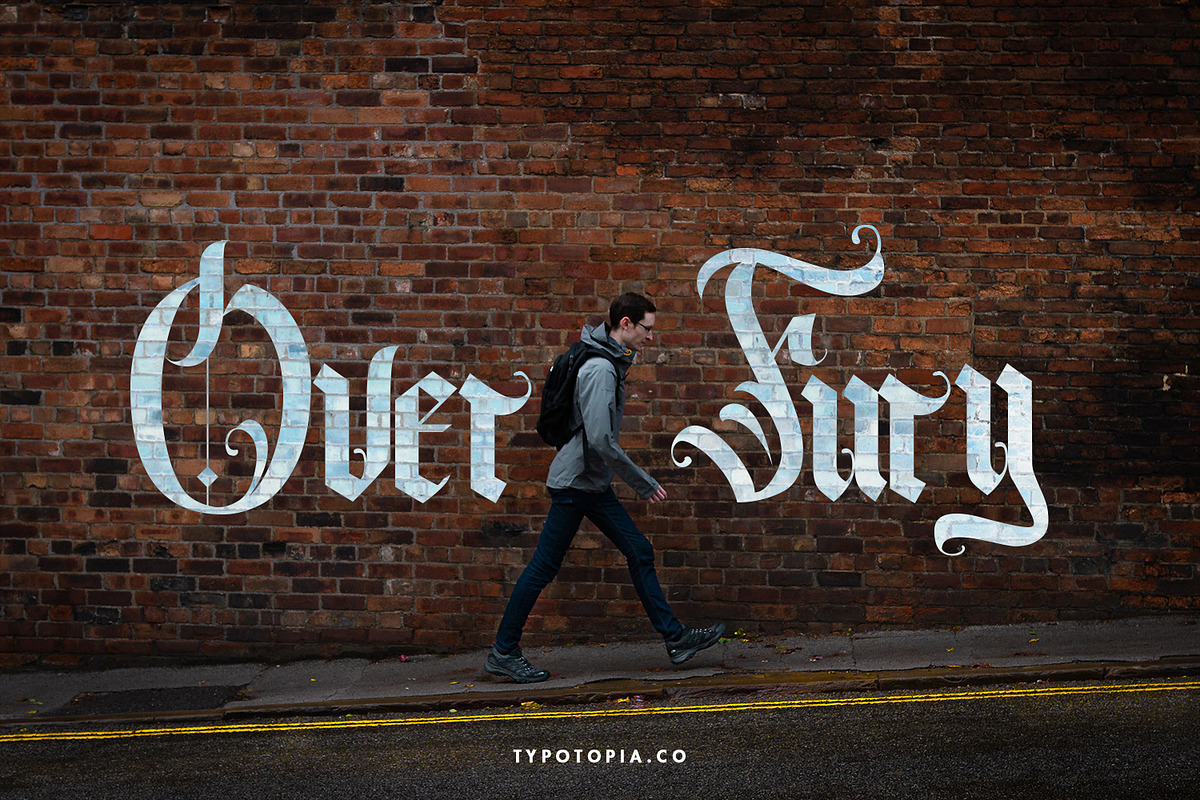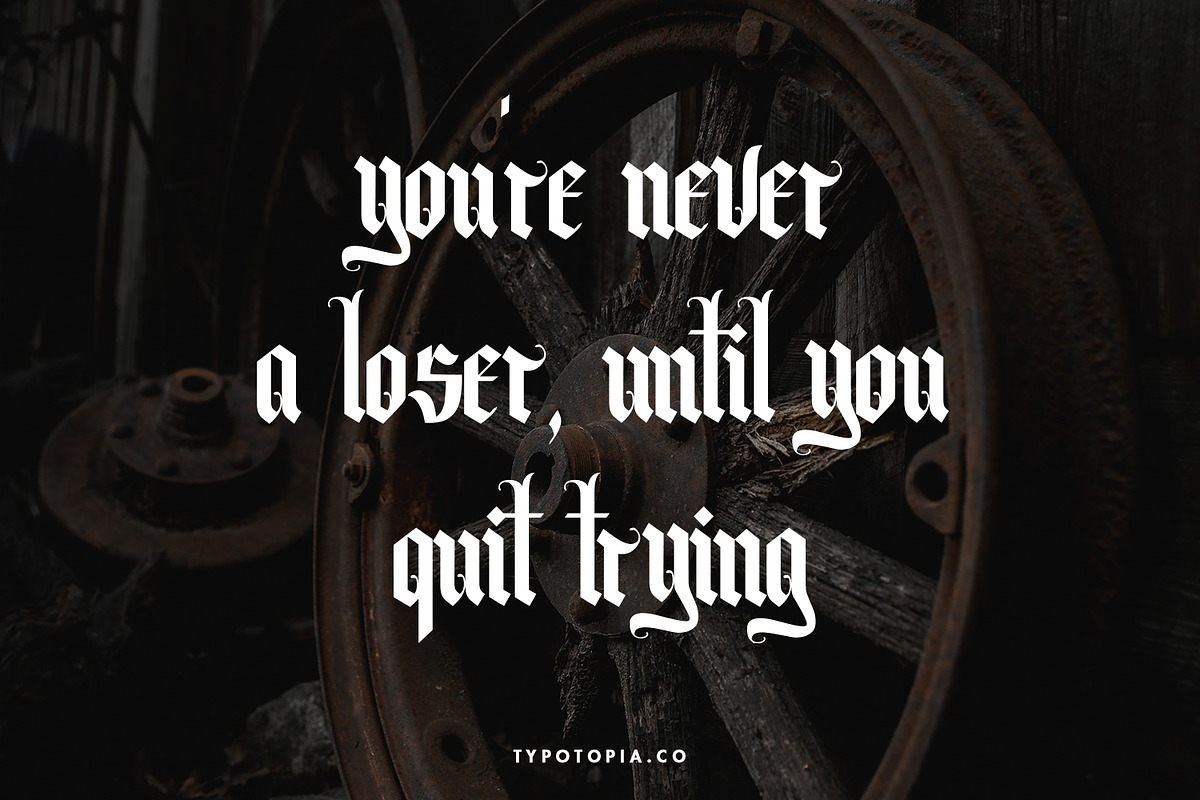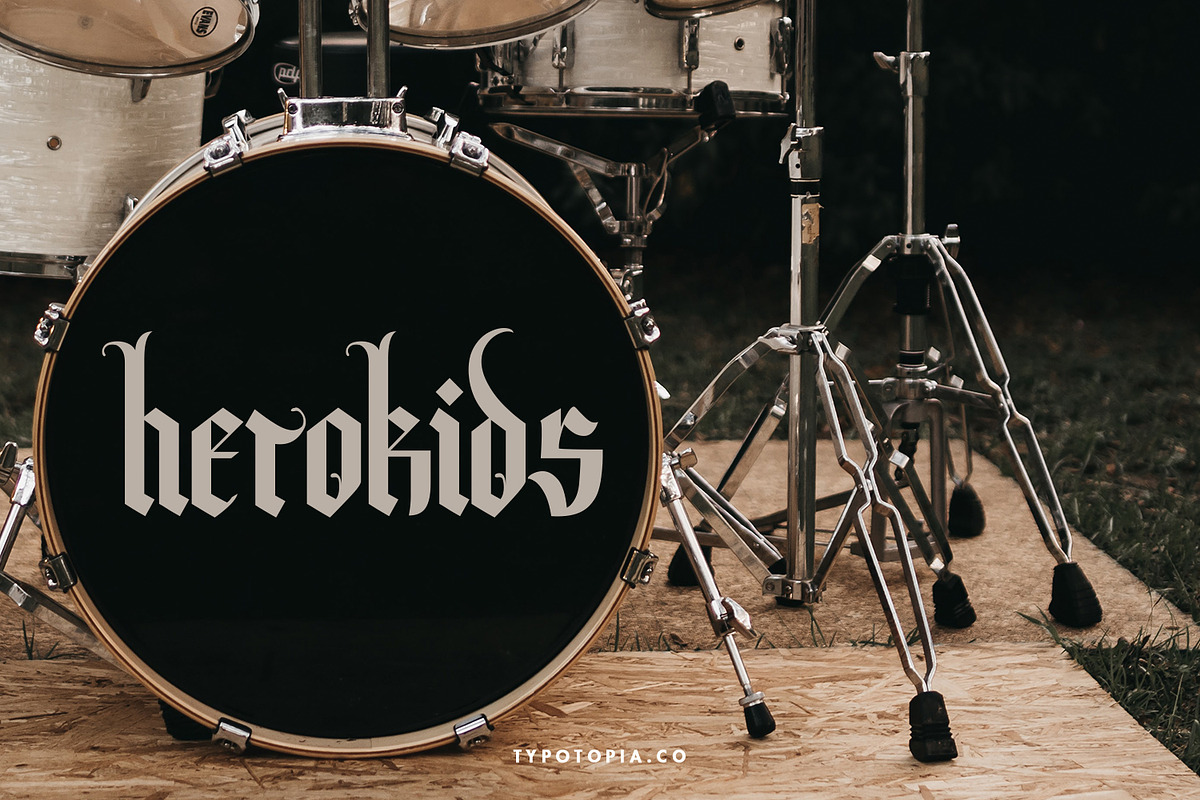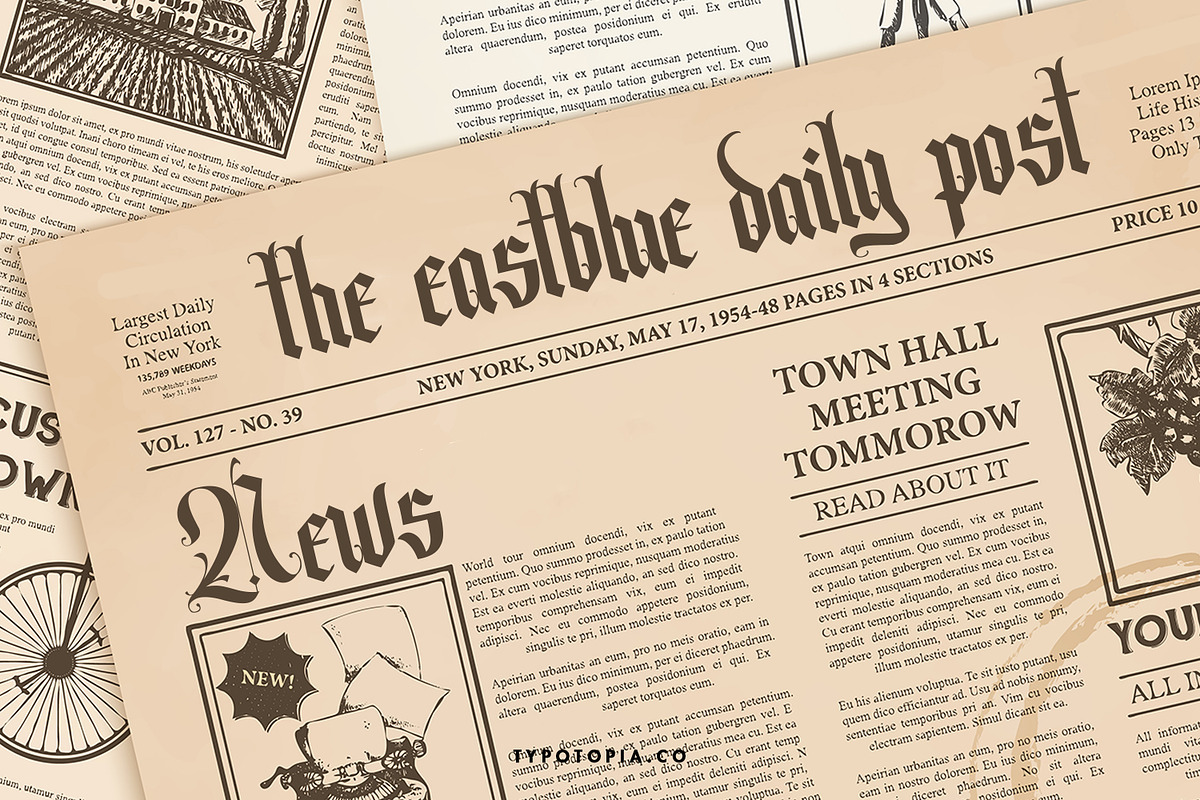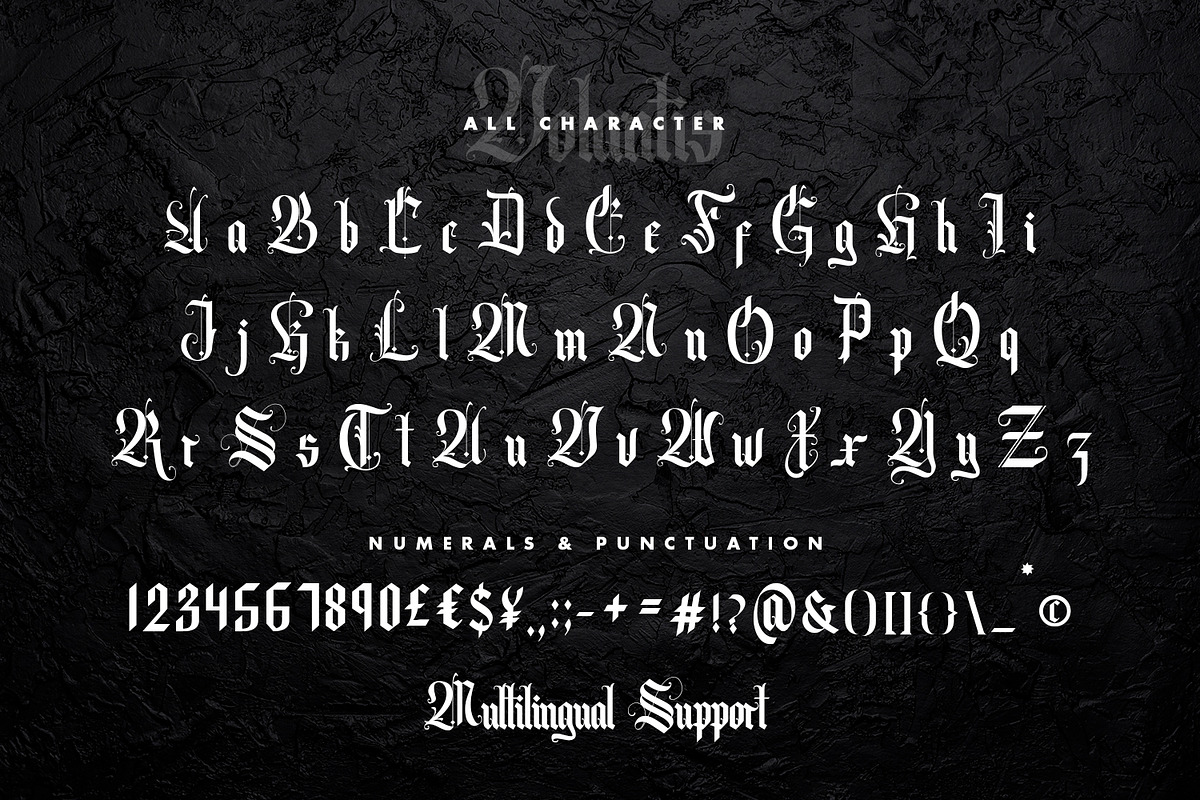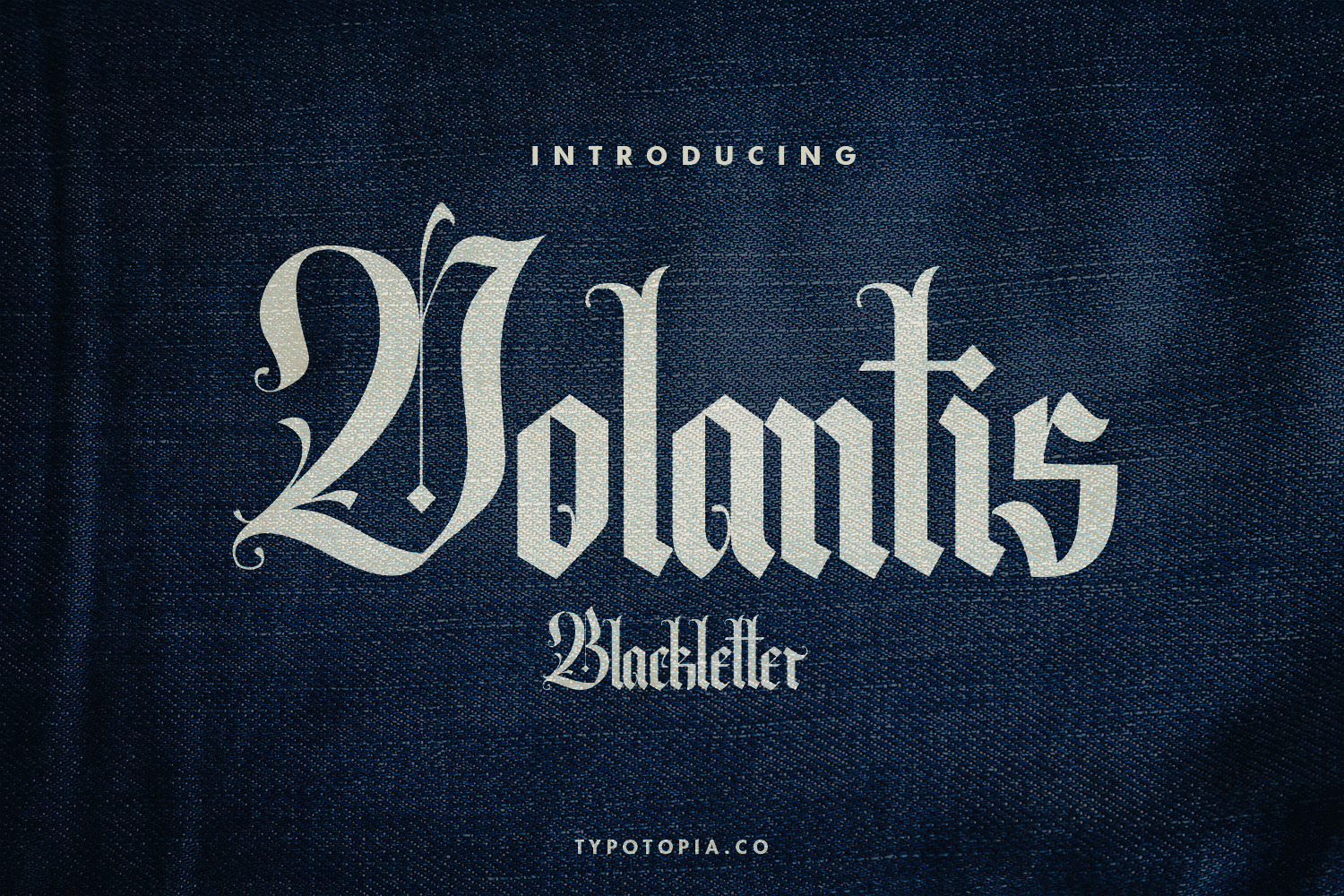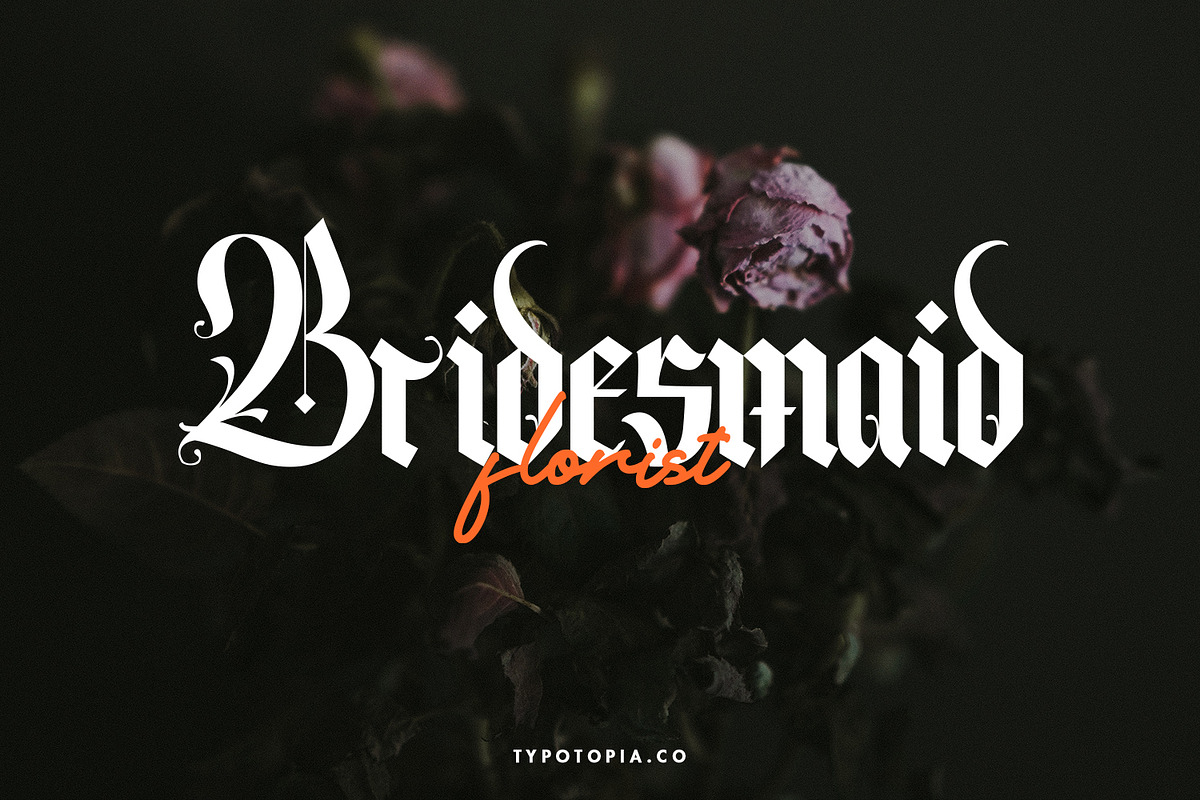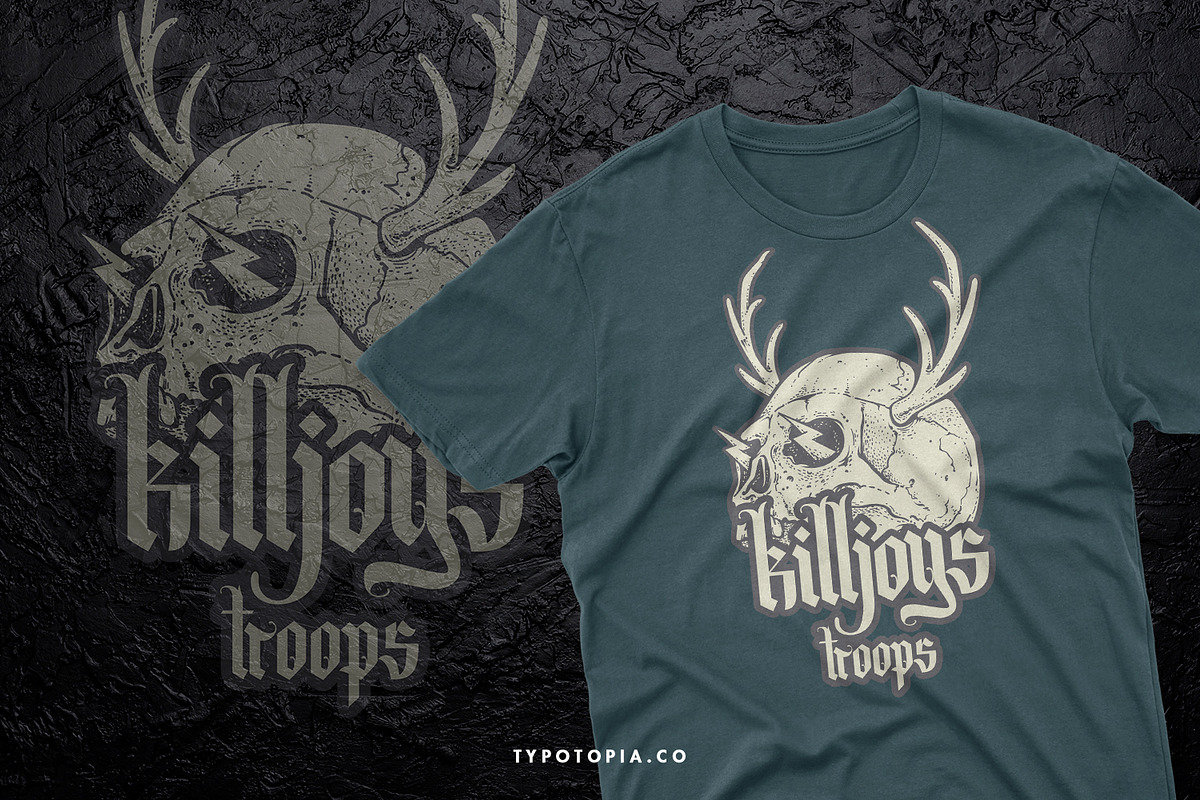
Volantis - Blackletter Fonts
Introducing Volantis
A Blackletter Font, This type of font perfectly made to be applied especially for logos, Poster, stationery, magazines, menus, books, invitations, greeting cards, packaging, labels, apparel, marketing, business cards, etc. otf, ttf,woff